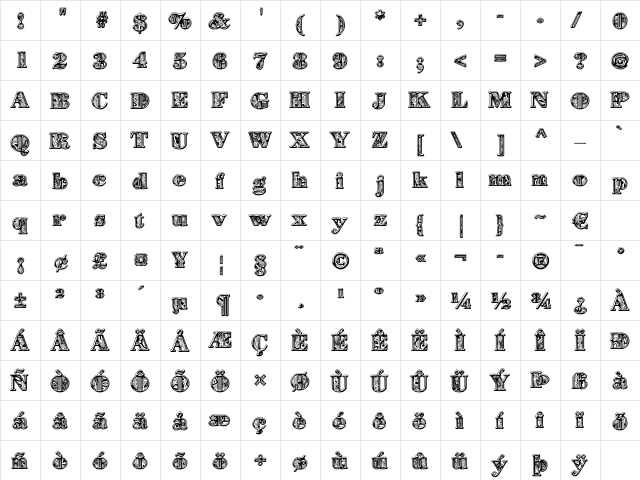
Metilius 'PopCulture' Regular
Design Context for Metilius 'PopCulture' Typeface
Metilius 'PopCulture' is a composed and adaptable typeface that performs quietly and consistently across a wide range of design contexts.